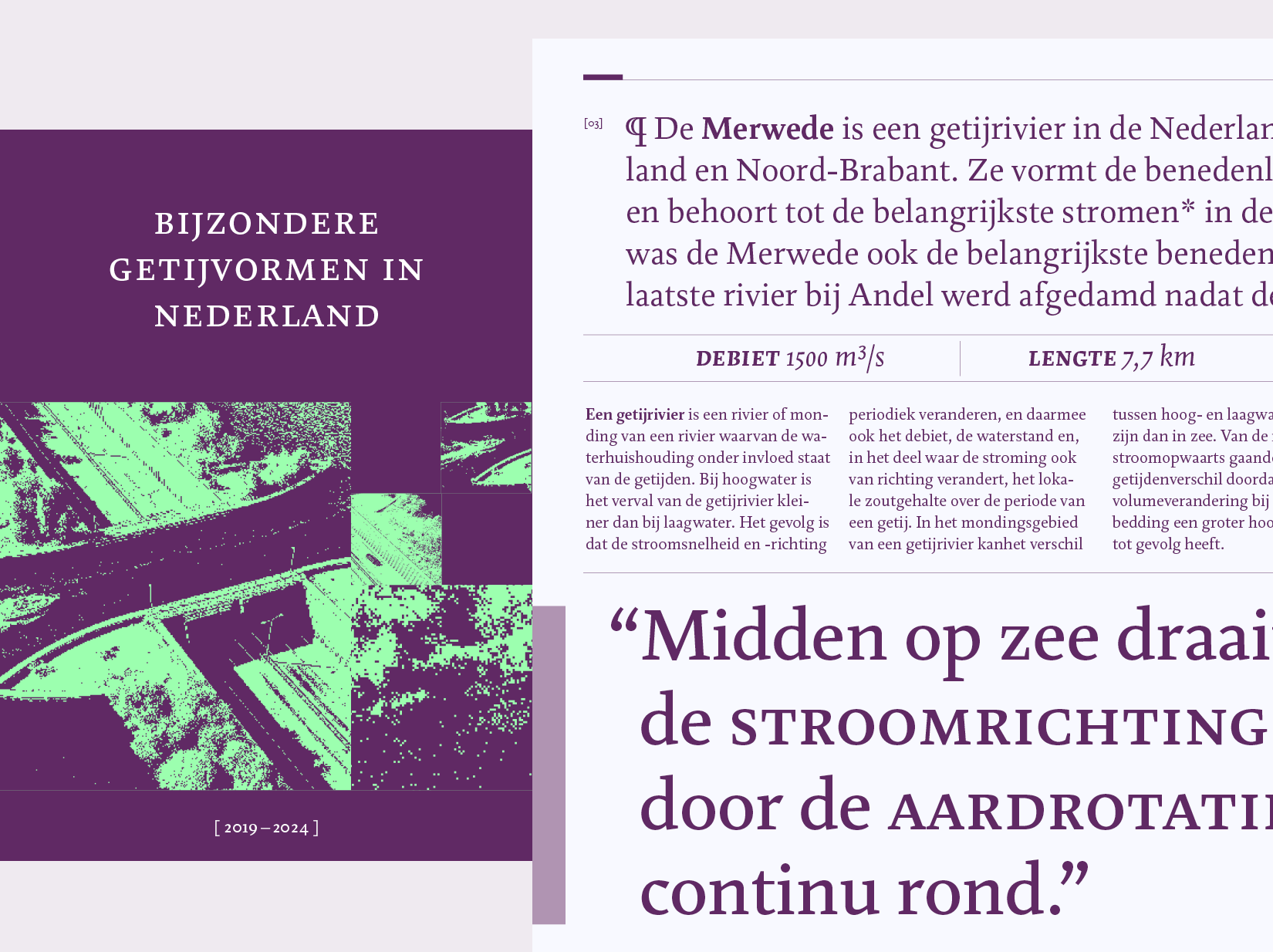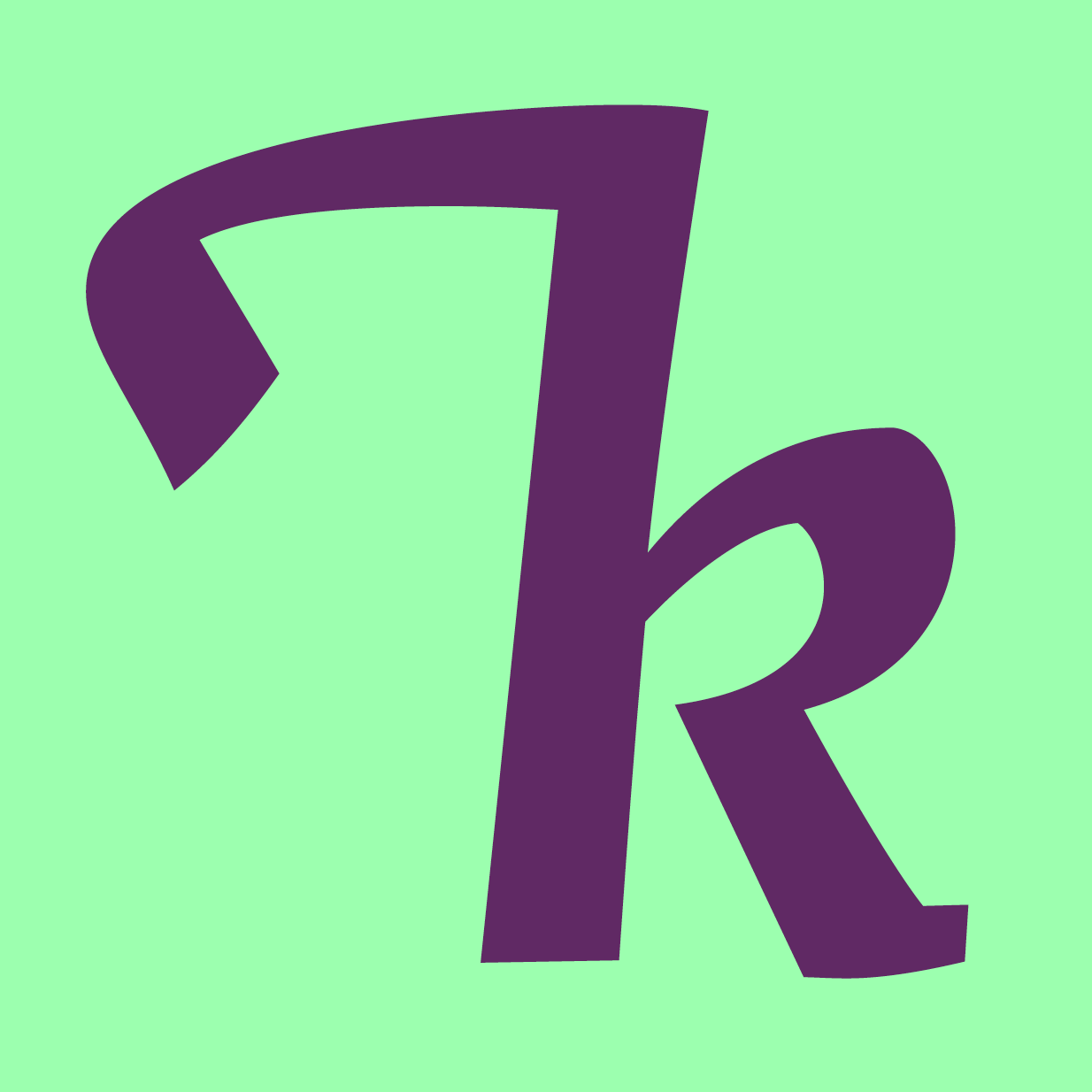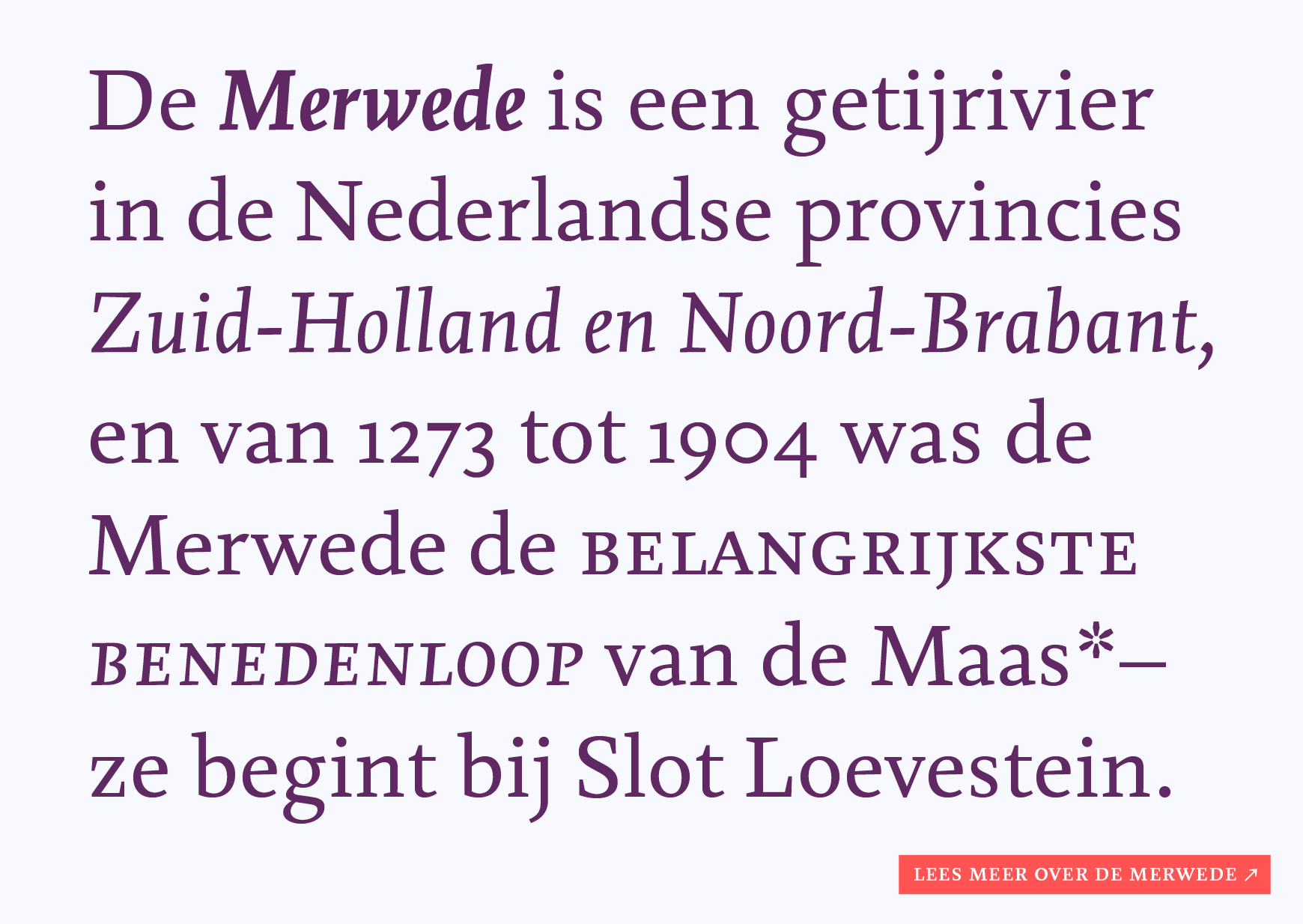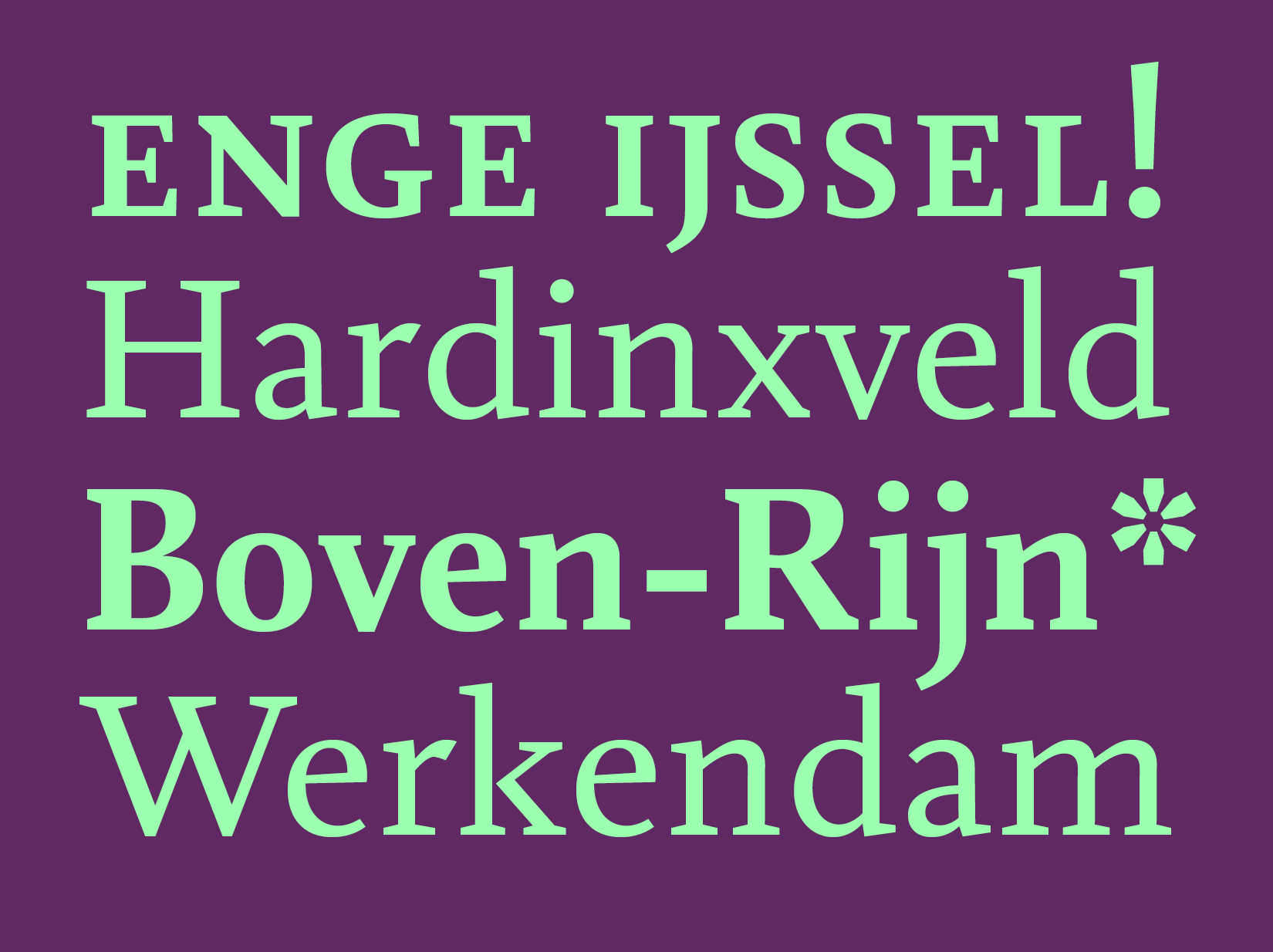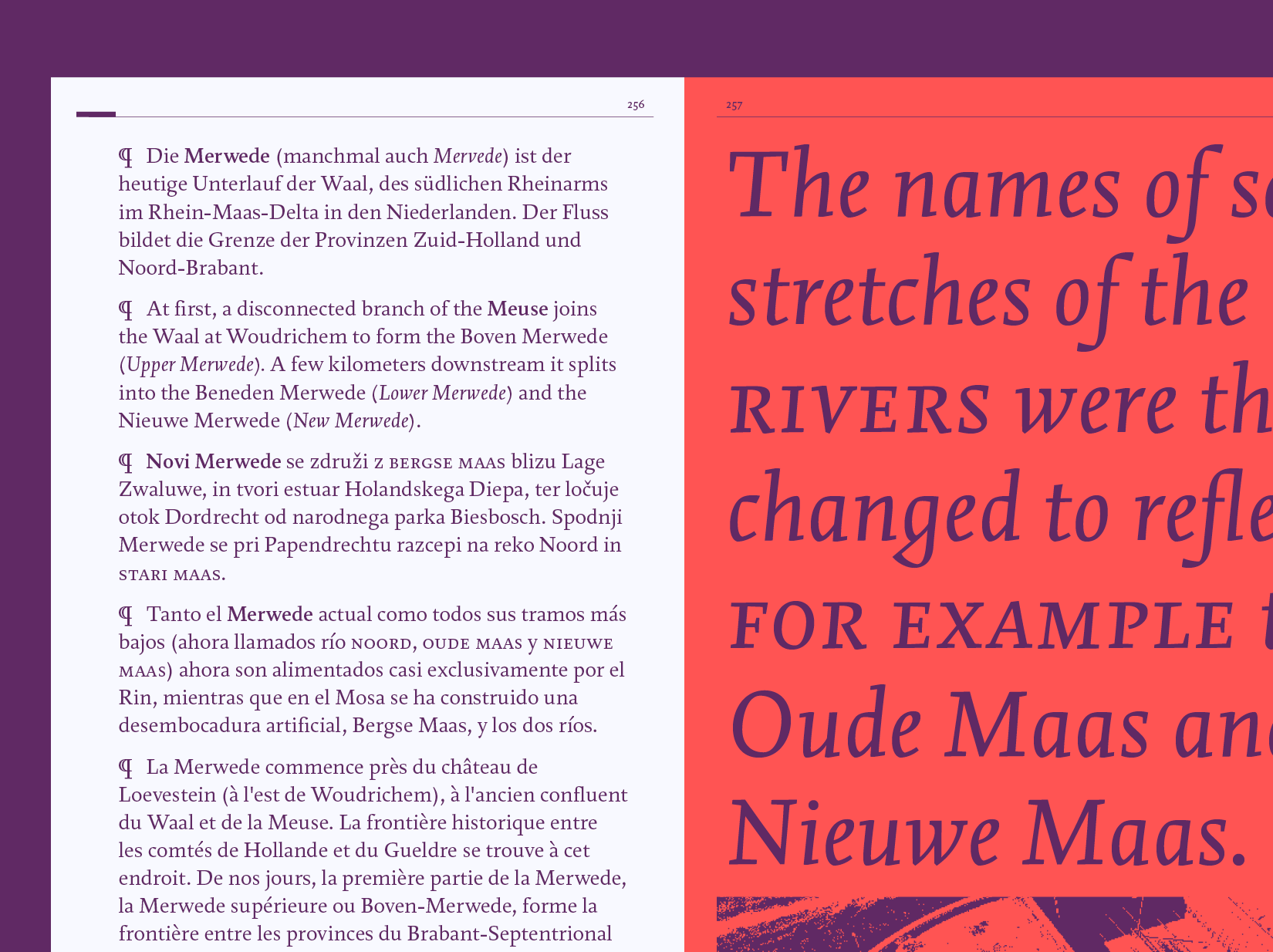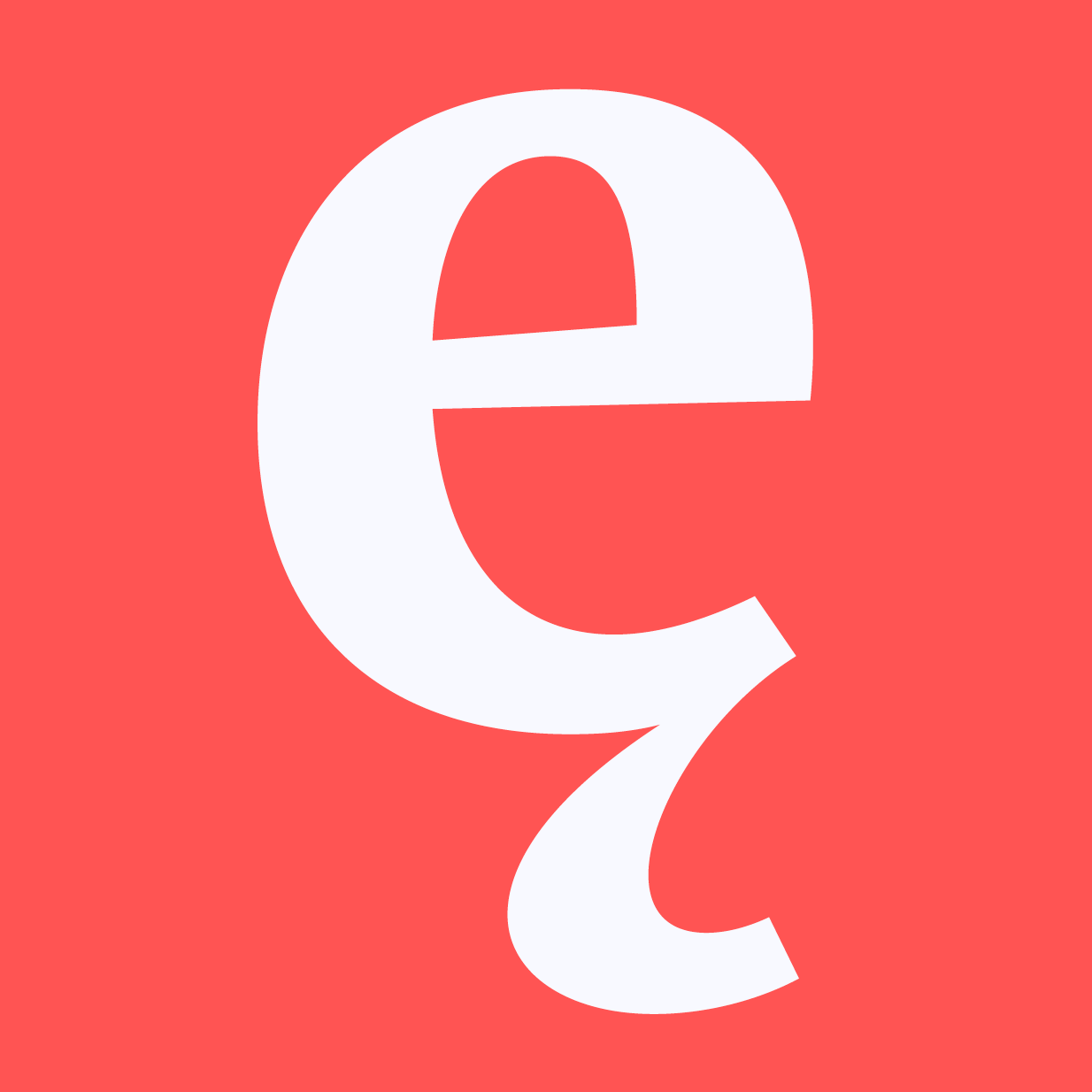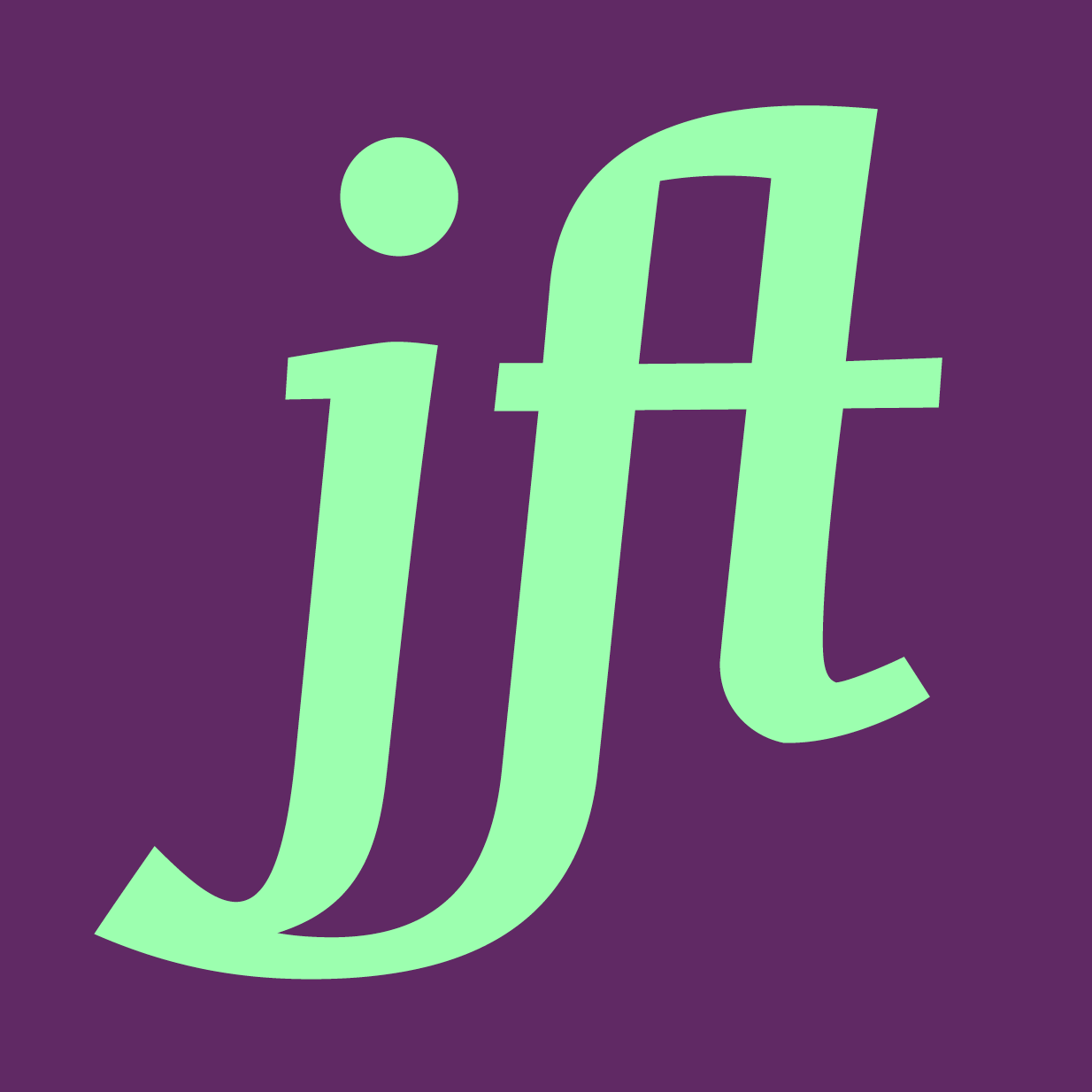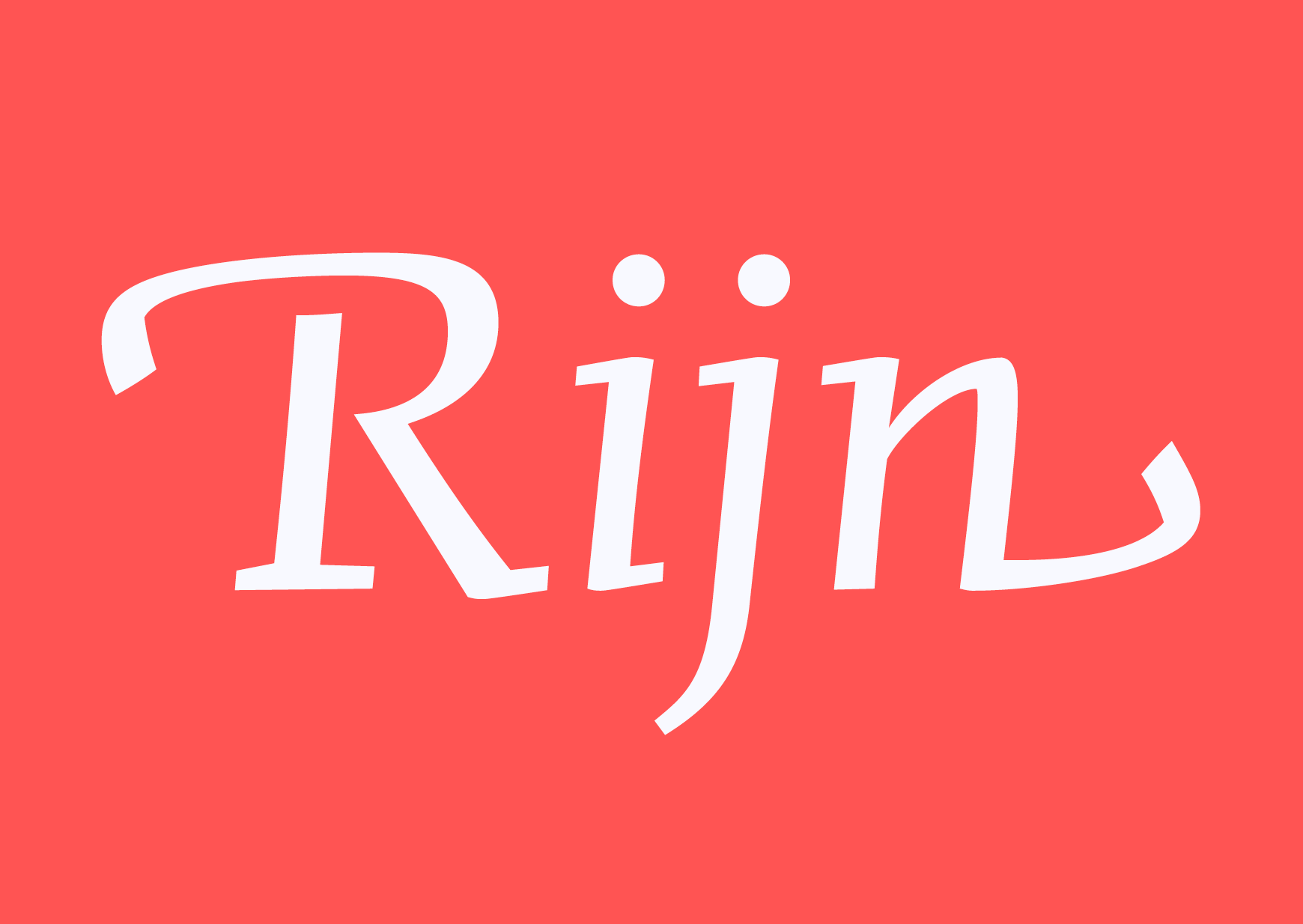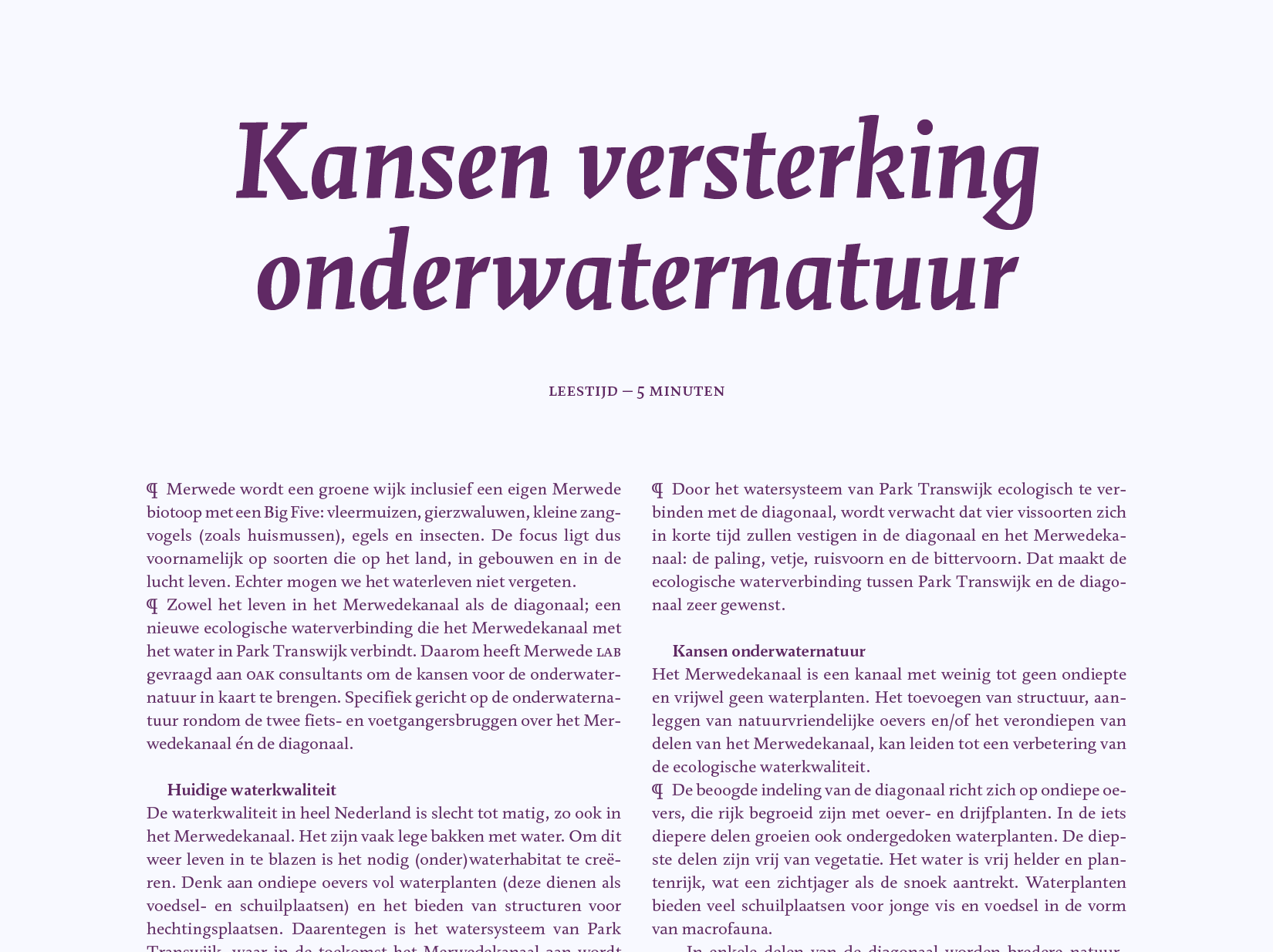
Merwede
Titus Schulz understands what makes a good text typeface legible. Drawing on 25 years of experience as a book designer and inspired by his own calligraphic handwriting, which he got introduced to at ArtEZ Academy of Arts Arnhem, he designed Merwede.
Merwede is not a revival. Many of its features are unconventional and unique. They stem from Schulz’s dissatisfaction with details in classic book typefaces, like italic capitals. (In Merwede, the italic capitals stand one degree more upright than the lowercase so they don’t appear to lean against the lowercase.) References and inspiration have been early Renaissance typefaces and the work of typographers and type designers such as Pierre Simon Fournier, Eric Gill, Jan van Krimpen, Helmut Salden and Martin Majoor, without following any particular model.
In addition to the three standard weights Regular, Medium and Bold, Merwede – named after a river in the west of The Netherlands – includes an intermediary weight called ‘Firm’. Merwede Firm is slightly heavier than Merwede Regular and was designed for posters, inscriptions or reversed-out text. All weights set to the same width so changes in the font weight won’t cause any reflow.
A unique feature of Merwede is the full set of musical chord symbols, which Schulz finds unfavourably designed in almost all music books. ‘Why are the sharp, flat and all necessary chord symbols missing in typefaces? Almost all music books are miserable shaped when it comes to these symbols.’
All this, plus an extensive set of OpenType features make Merwede a true, very charming multi purpose type family.